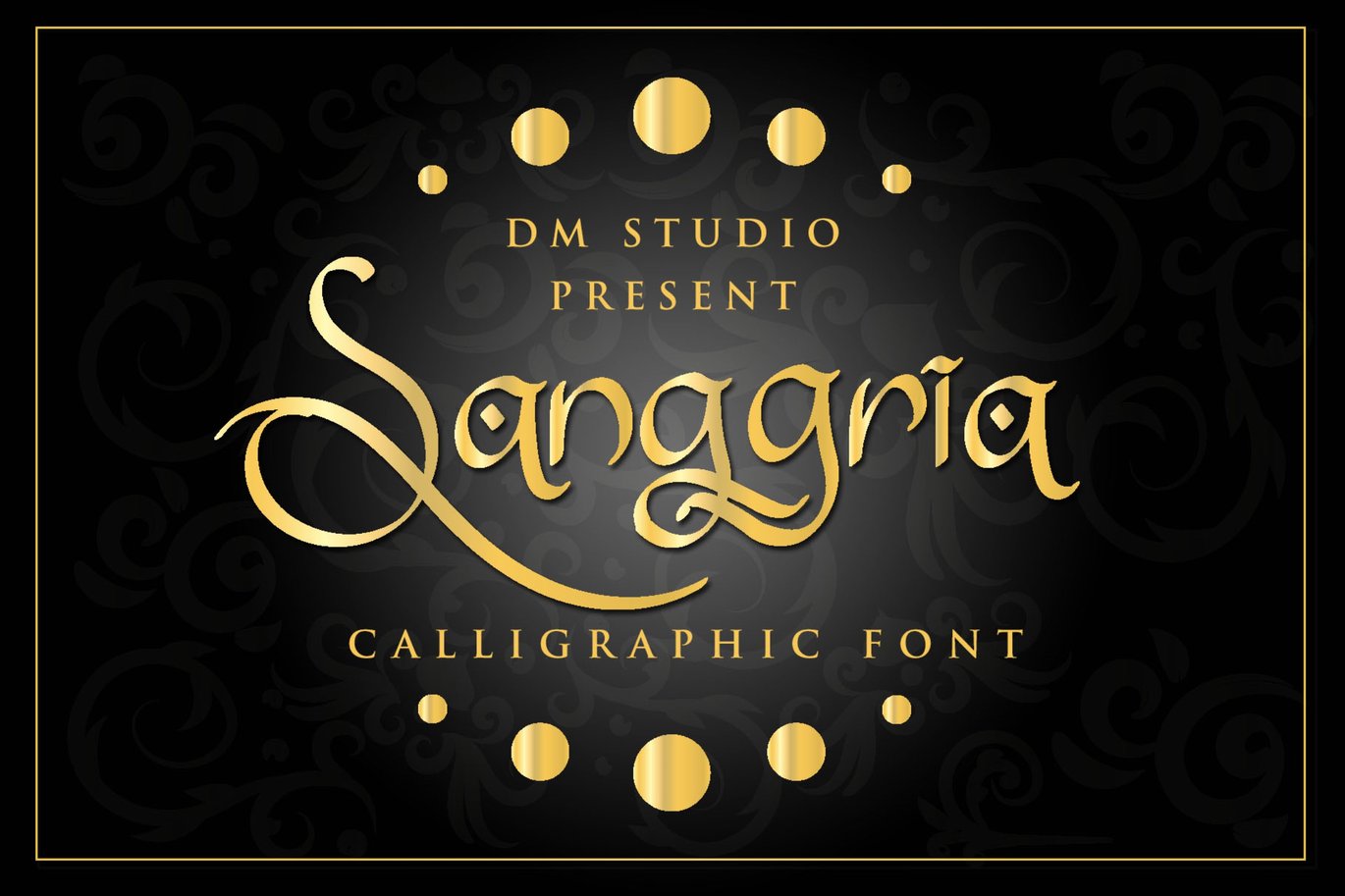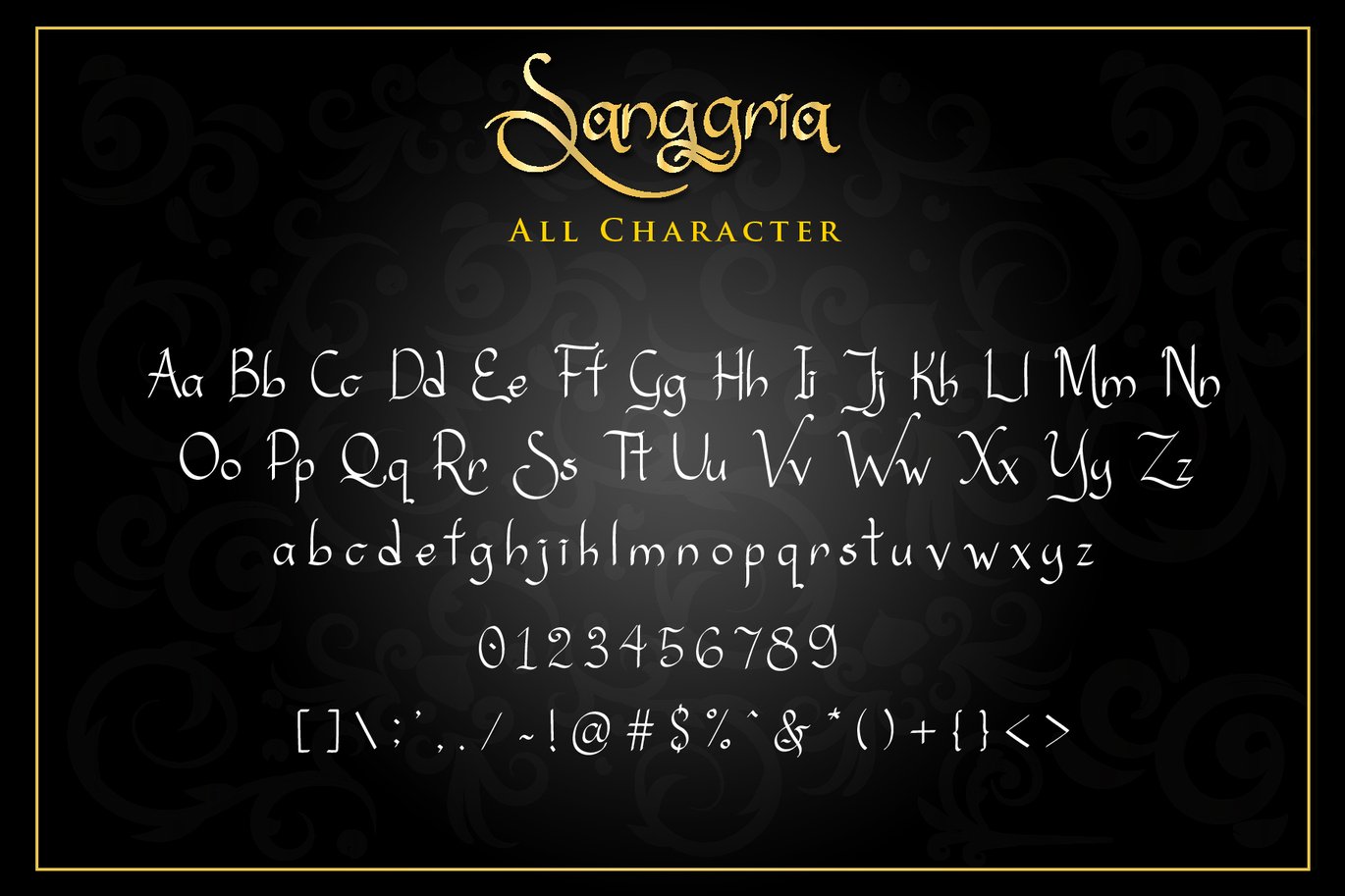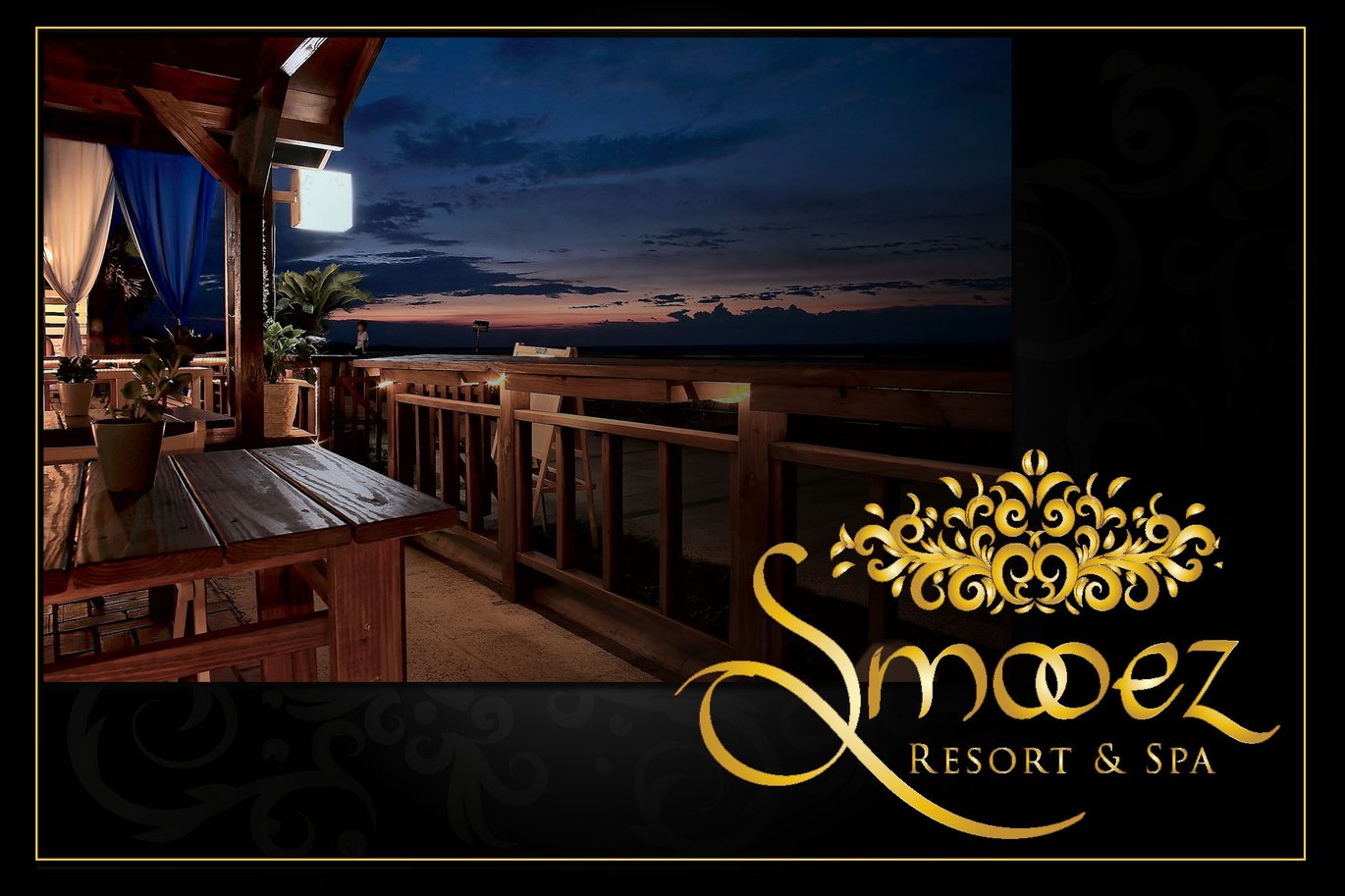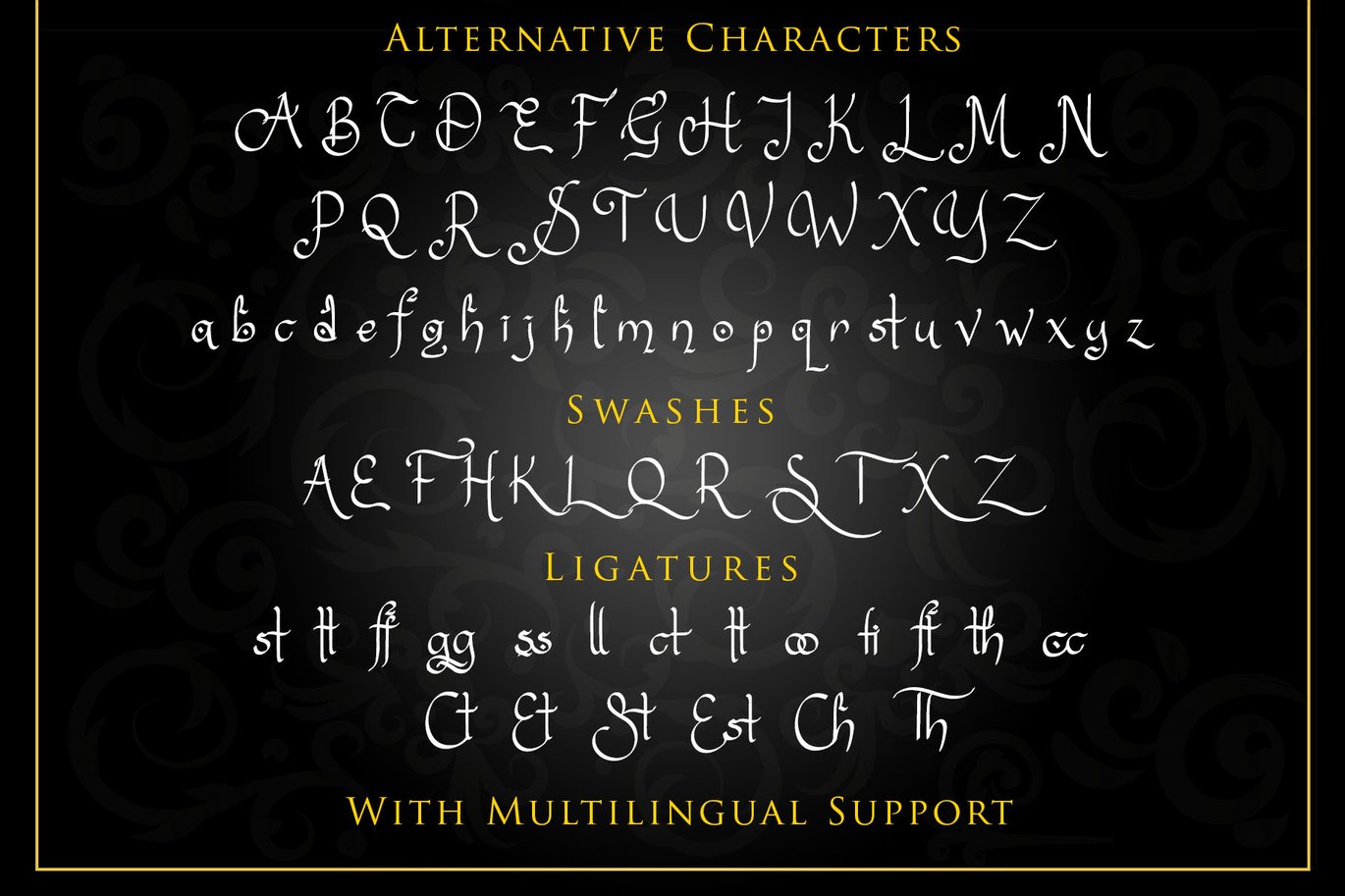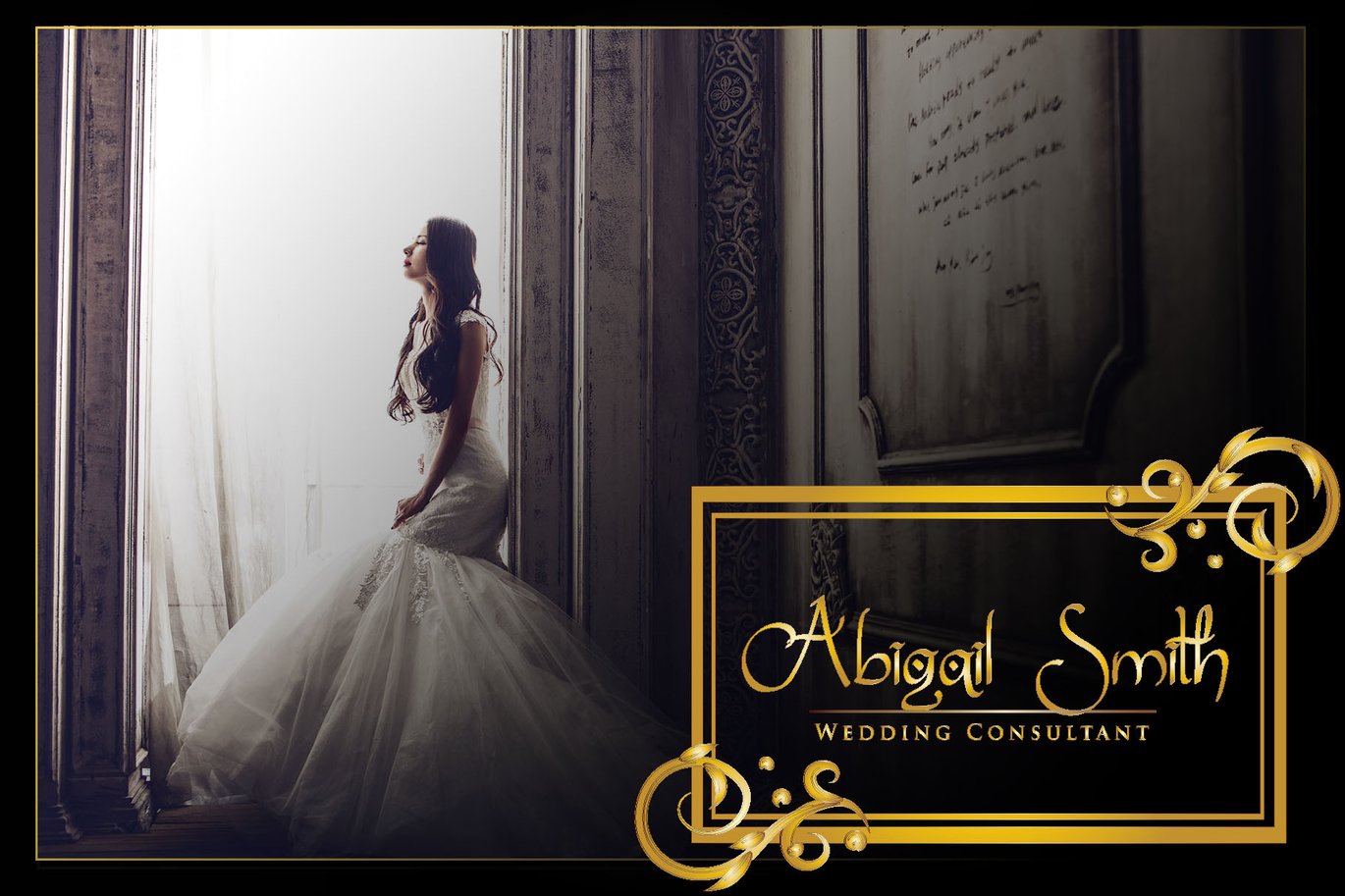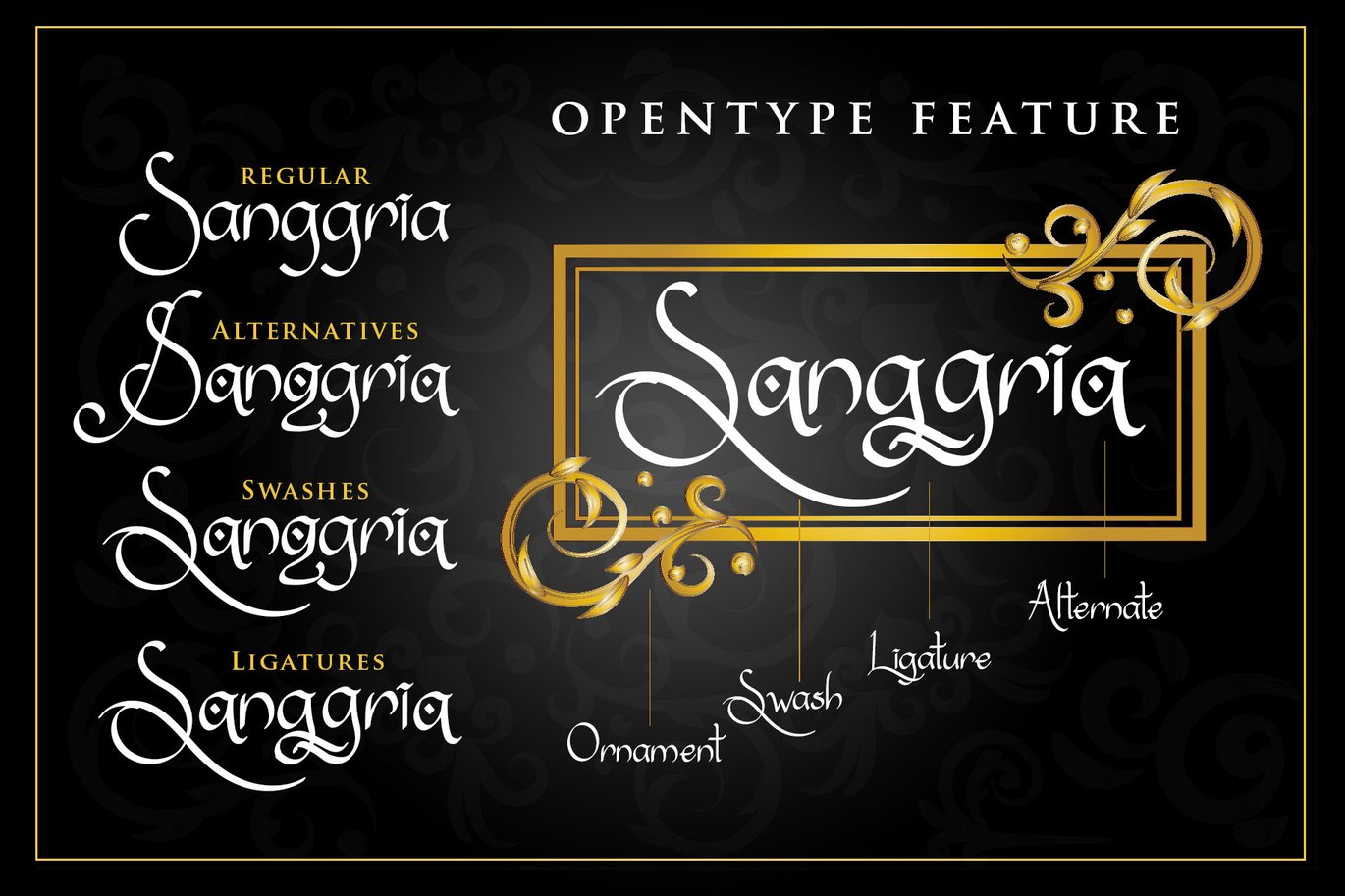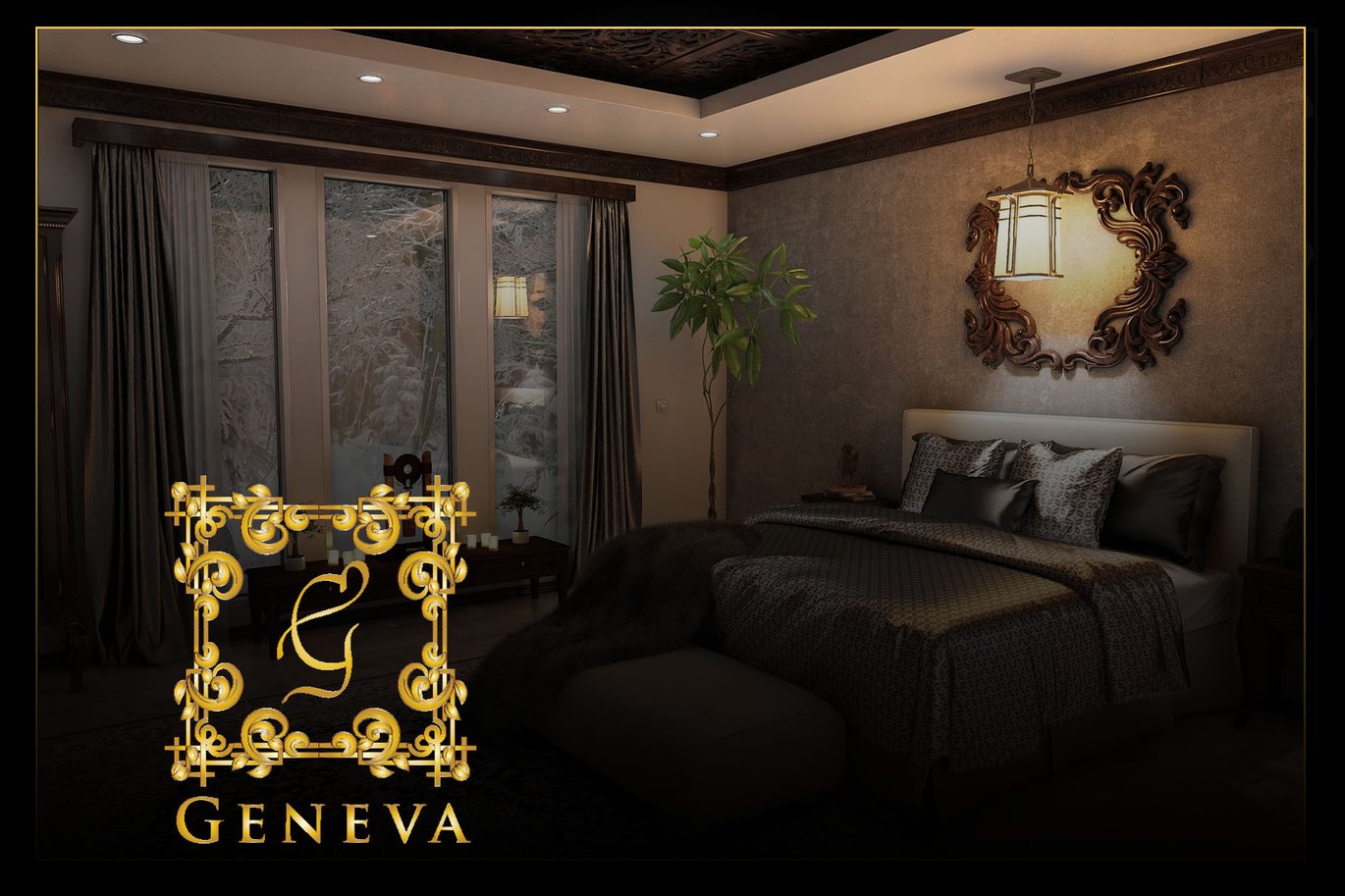
Sanggria – Calligraphic Font
Introducing, Sanggria Font.
This is the Classy handwritten with ancient Calligraphic font style,
inspired by classical culture. Comes with some opentype features to make
this font more exclusive. Great choice for logo, branding, letter sign,
stamp, business card, advertisement, flyer, poster and more! We keep
this font is easy to use and great to pair each others.
Sanggria Features :
-Uppercase and lowercase,
-Numerals
-Symbols and Punctuations
-Stylistic Alternates, Swashes Characters, Ligatures, with PUA
-Encoded, so it may be used in mostly programs and Operating Systems.
-Multilingual Supports ( AÀÁÂÃÄÅCÇDÐEÈÉÊËIÌÍÎÏNÑOØÒÓÔÕÖUÙÜÚÛWYÝŸỲŸÆŒßÞþ )